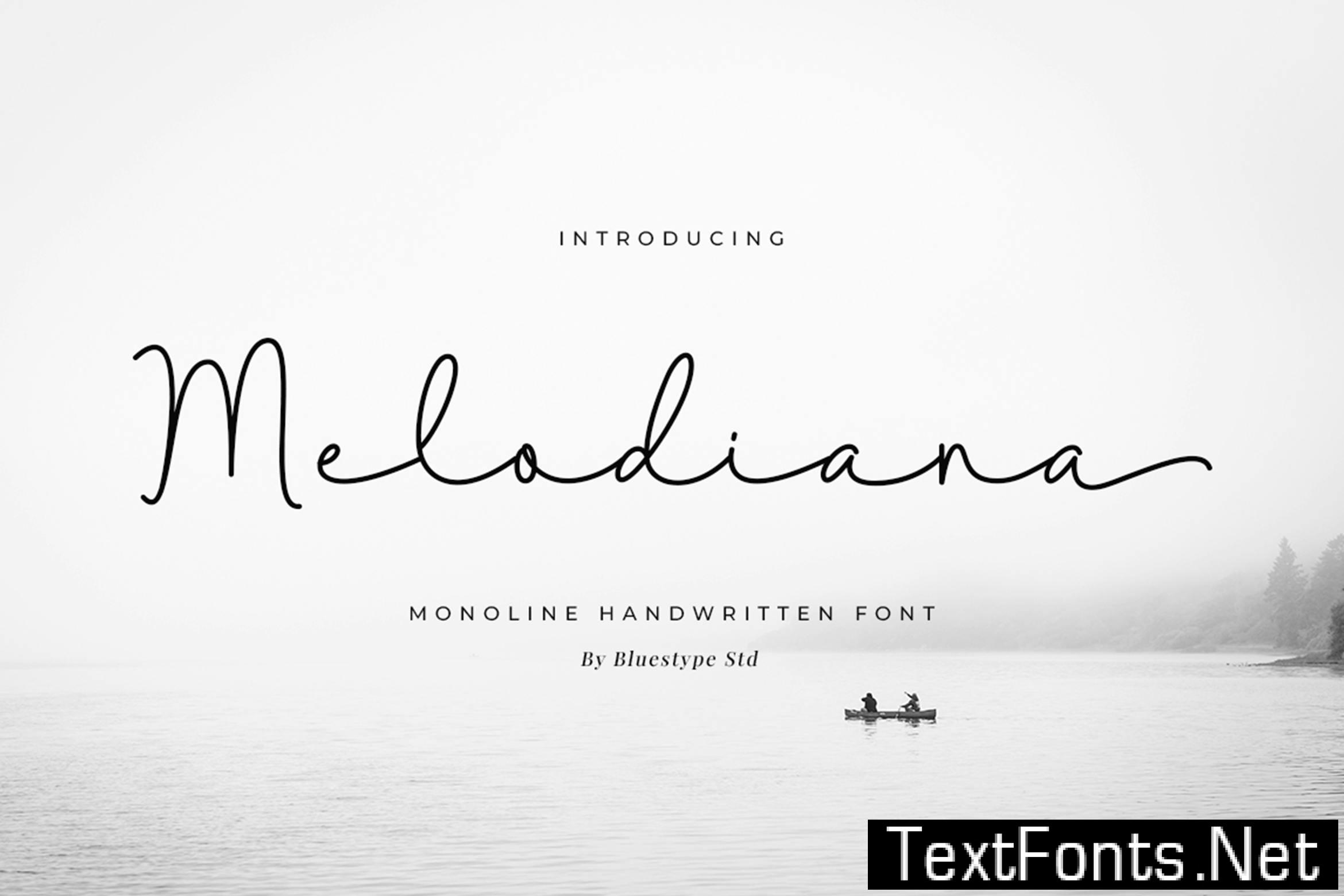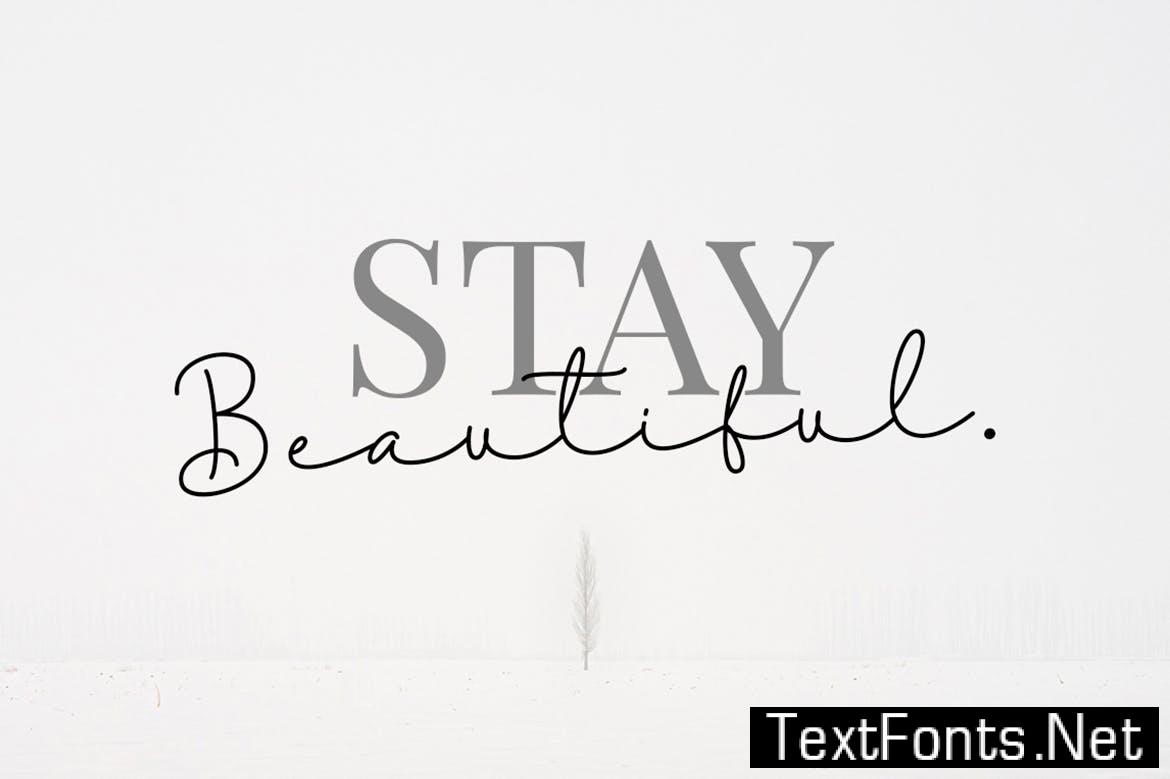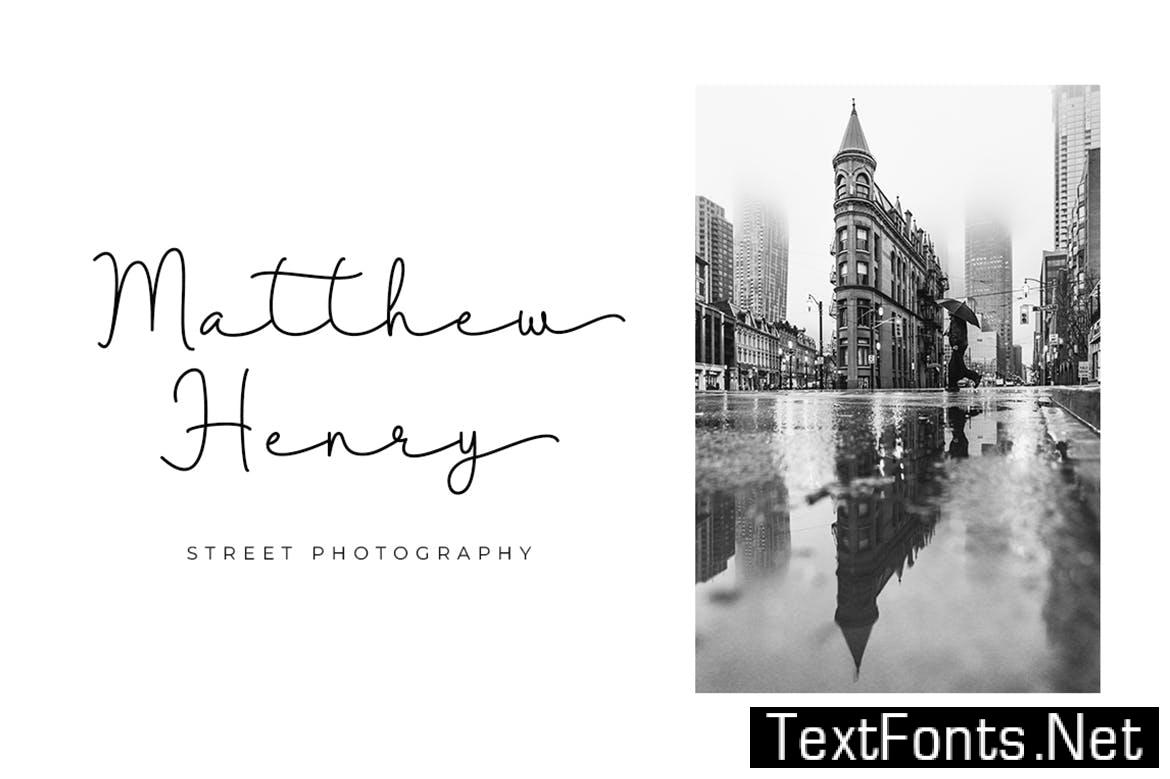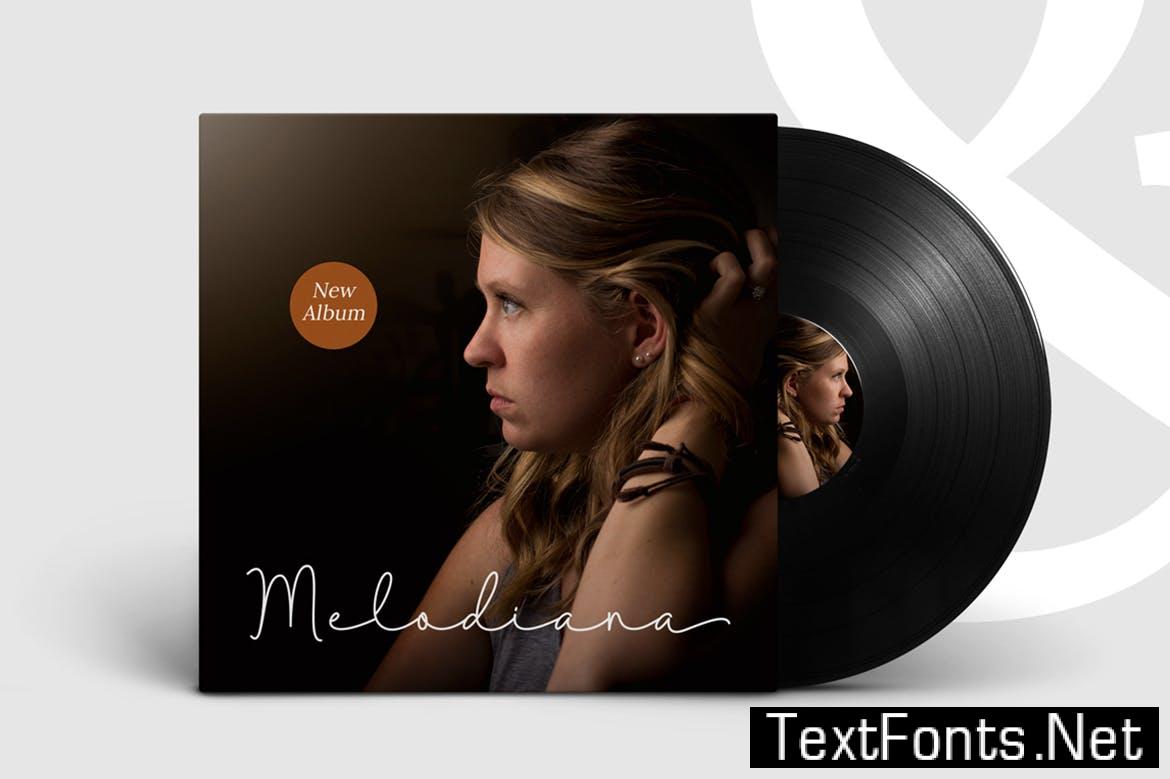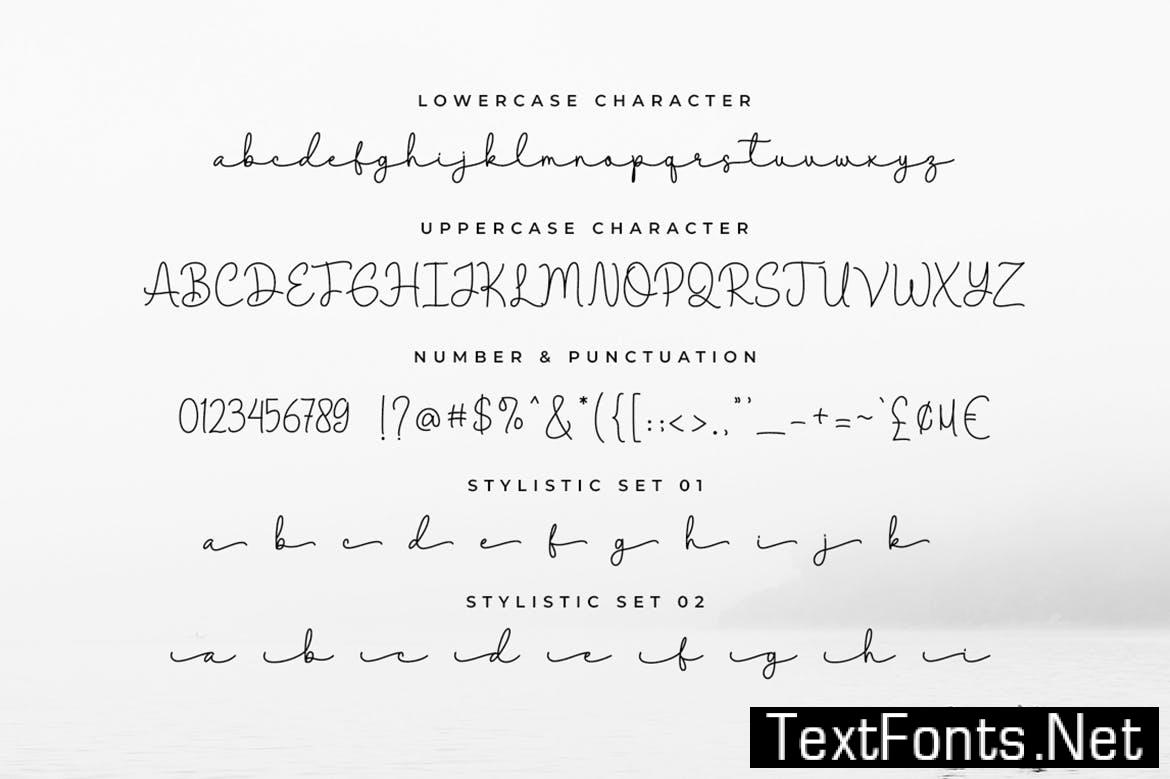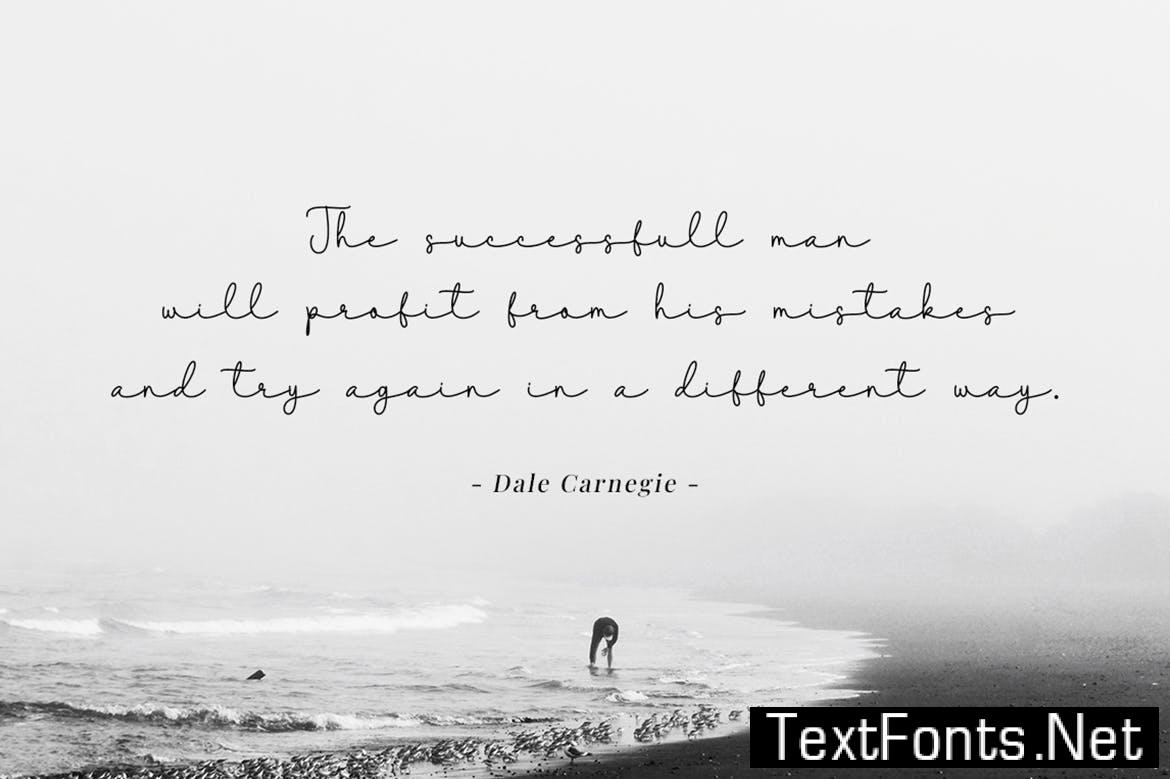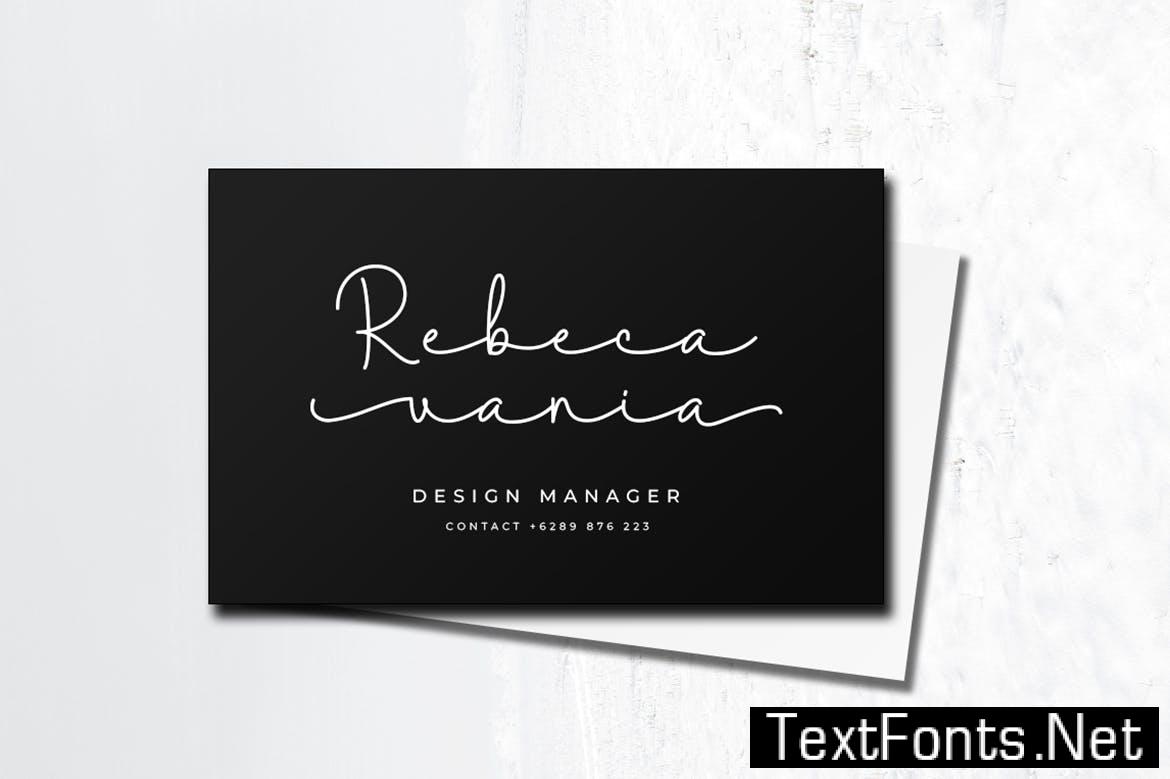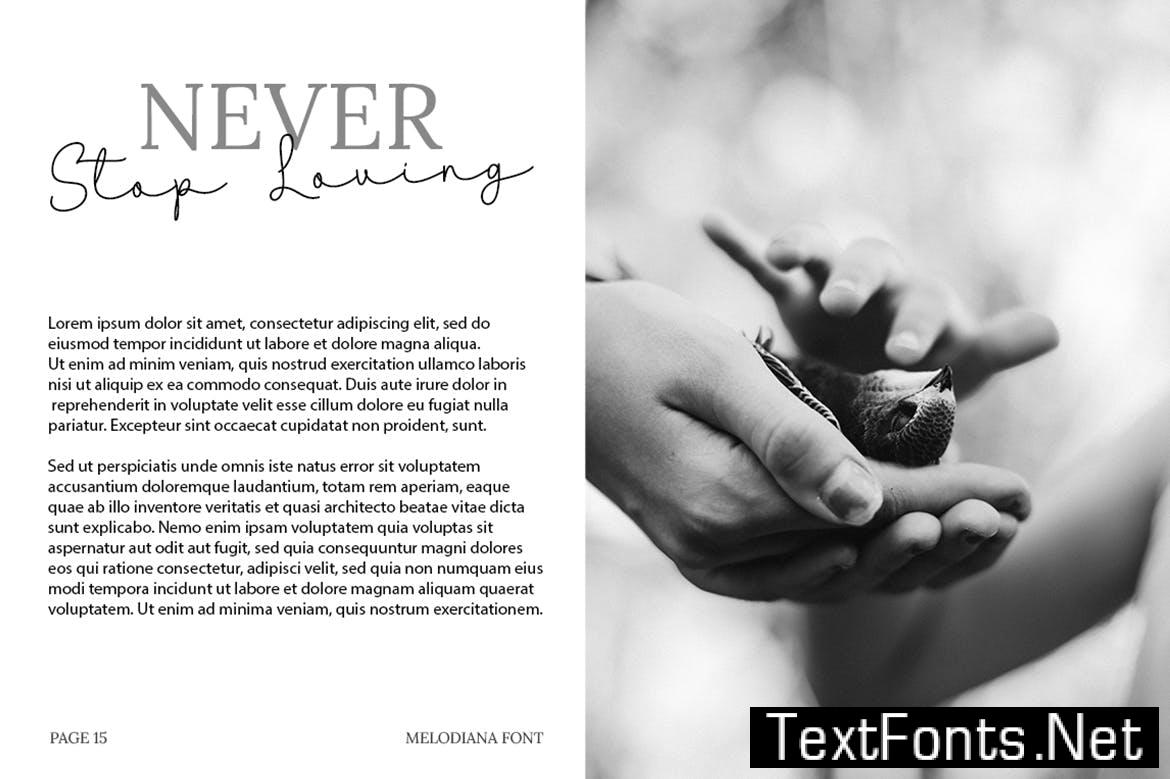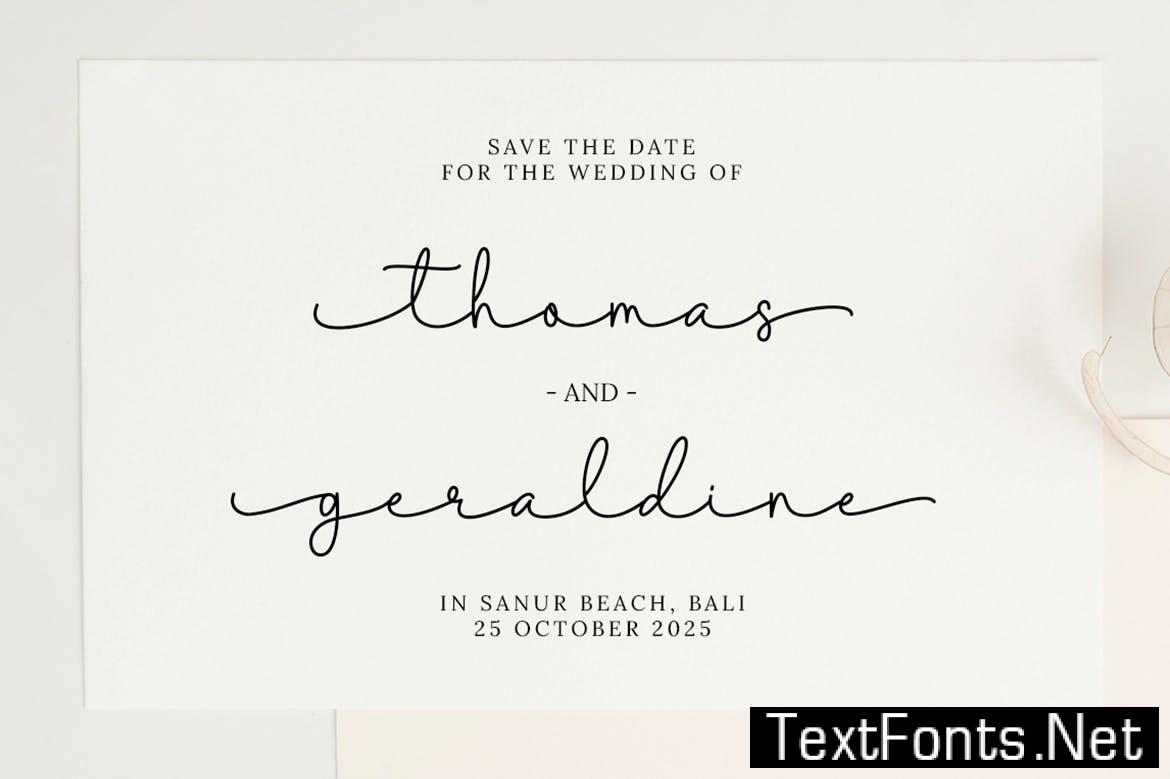
Introducing Melodiana – Monoline Handwritten
Melodiana is an elegant handwritten font, has graceful and beautiful curves and a long tail. This font is PUA encoded, which means you can access all of the glyphs with ease!
Features :
– Ligatures
– Stylistic Set
– Number & Punctuation
– Support Multilingual Languange